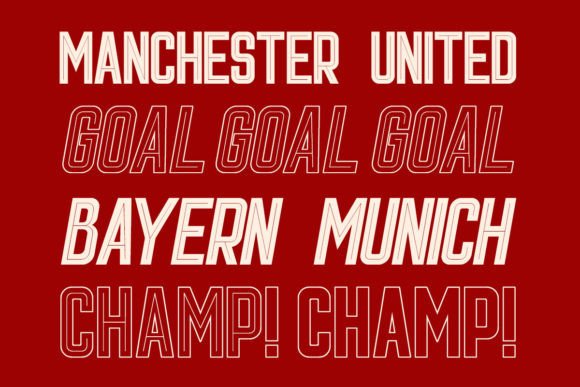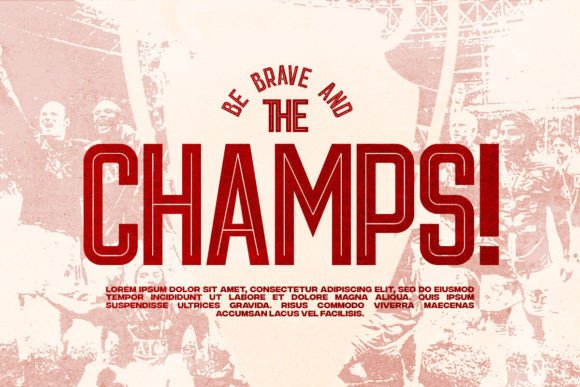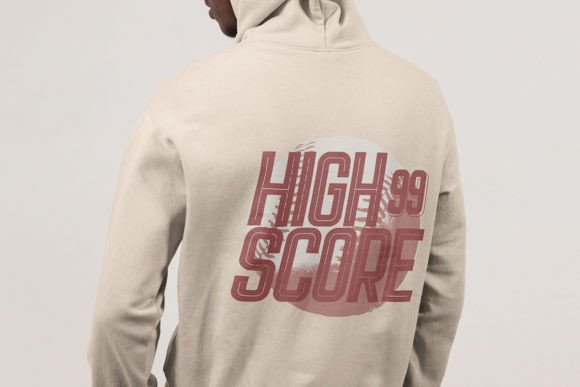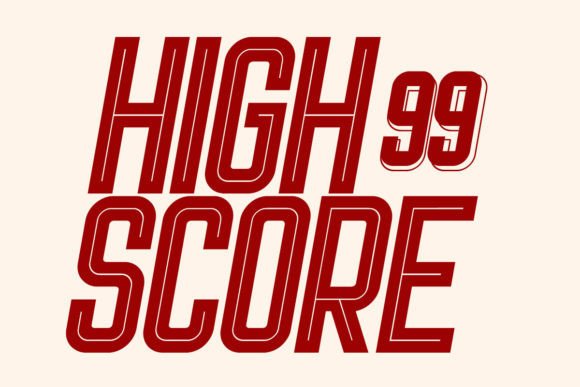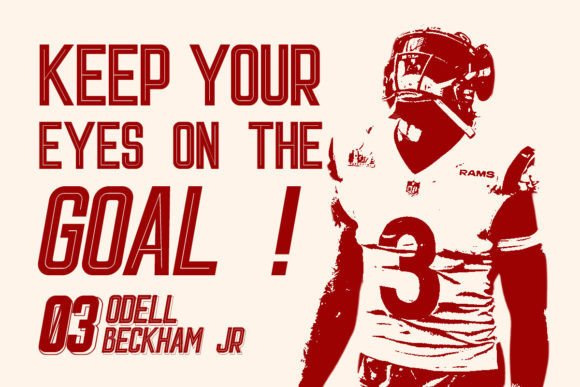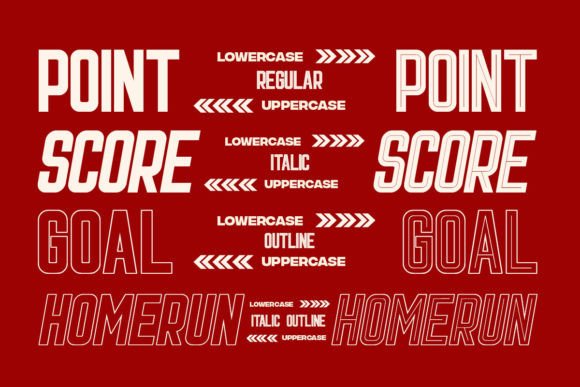
Introduction to Light Sport Font
Introducing Light Sport – Sans sport with added unique characters.
Ideal for logos, bold action graphics, and sporty designs, Light Sport is perfect for baseball themes, technology, and action-packed projects .
Key Features of Light Sport Font
Why Choose Light Sport Font?
Light Sport Font offers exceptional quality and versatility, making it a valuable addition to your design toolkit. Whether you’re creating for personal projects or commercial use, Light Sport Font delivers professional results.